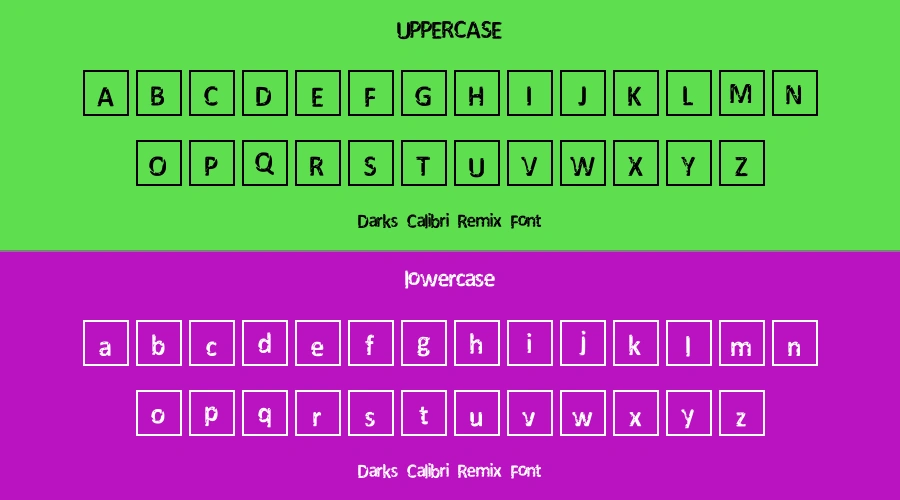
About Darks Calibri Remix Font
Darks Calibri Remix Font embodies typographic excellence through its masterful combination of tapered strokes and technical excellence. Created for advertising headers, this typeface delivers exceptional precision and professional finish across all applications. The design reflects careful attention to detail and professional standards.
Advanced capabilities include distinctive fluid connections and versatile oldstyle figures, giving designers creative control. When used in brand statements, Darks Calibri Remix Font exhibits remarkable personality transfer. The harmonious balance between crossbar height and engineering heritage sets this typeface apart.